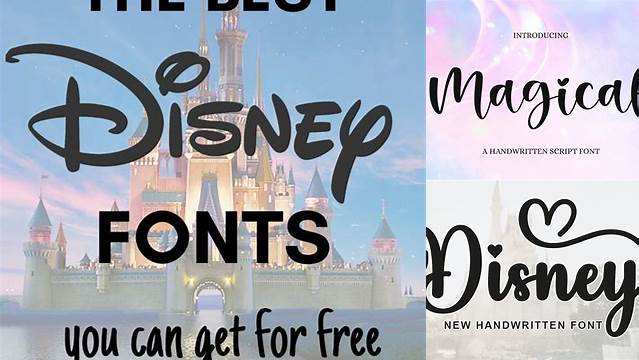
Download Disney Fonts Free Online: A Magical Guide
Hey everyone! Are you looking to sprinkle some Disney magic into your projects? Well, you're in the right place! In this guide, we'll explore how to find and download Disney fonts free online. From creating enchanting invitations to designing captivating social media posts, these fonts can add that special touch. Let’s dive in and discover the world of Disney fonts!
What is Disney Font?
The Disney font is more than just a typeface; it's a symbol of childhood dreams, magical adventures, and heartwarming stories. Officially, there isn't one single font that represents all of Disney. Instead, various fonts have been used over the years across different movies, theme parks, and promotional materials. These fonts evoke a sense of nostalgia and fantasy, making them highly sought after by designers and Disney enthusiasts alike. The classic Disney font often features whimsical, rounded letterforms, exuding a playful and friendly vibe that resonates with audiences of all ages. When you think of that iconic Disney logo, or the titles of your favorite animated films, those are specific, carefully crafted typefaces that contribute significantly to the overall Disney brand identity. Understanding what encapsulates a "Disney font" means appreciating the diversity and artistry behind these typographic choices.
Why Use Disney Fonts?
Why should you even bother with Disney fonts? Disney fonts bring a unique, whimsical touch to any project, immediately evoking feelings of nostalgia and happiness. Whether you're designing a birthday invitation for a Disney-themed party, creating graphics for a fan website, or just want to add a bit of magic to your personal projects, these fonts are perfect. They capture the essence of Disney's storytelling and visual appeal, making your work stand out. The use of Disney fonts can also tap into the emotional connection people have with Disney, creating a more engaging and memorable experience for your audience. Moreover, incorporating these fonts can be a fun way to express your creativity and love for all things Disney. So, if you're looking to add a sprinkle of magic and a dash of charm, Disney fonts are an excellent choice.
Free vs. Paid Disney Fonts: Which is Better?
Where to Find Disney Fonts Free Online
Using Disney Fonts in Cricut Design Space
Using Disney fonts in Cricut Design Space is a fantastic way to personalize your crafting projects with a touch of Disney magic. Before you start, make sure you have downloaded and installed the Disney font on your computer. Cricut Design Space uses the fonts installed on your system, so this step is crucial. Once the font is installed, open Cricut Design Space and start a new project. Click on the "Text" tool to add text to your canvas. In the font selection menu, you should see the Disney font you installed. If it doesn't appear immediately, try restarting Cricut Design Space. Select the Disney font, type your desired text, and then adjust the size, color, and placement as needed. You can use Disney fonts to create custom t-shirts, home décor, party decorations, and more. The possibilities are endless! Just remember to check the licensing if you intend to sell your creations. Have fun crafting your Disney-inspired projects!
Staying Updated on New Disney Font Releases
Staying updated on new Disney font releases can help you keep your designs fresh and relevant. Follow Disney's official social media accounts and blogs to stay informed about new font releases and design trends. Subscribe to newsletters and email lists from font foundries and design websites that feature Disney-inspired fonts. Regularly check online font repositories like DaFont and Fontspace for new additions. Participate in online communities and forums where designers share information about new font releases. By staying proactive and engaged, you can ensure that you're always aware of the latest Disney fonts and design trends, allowing you to create cutting-edge and visually stunning designs.